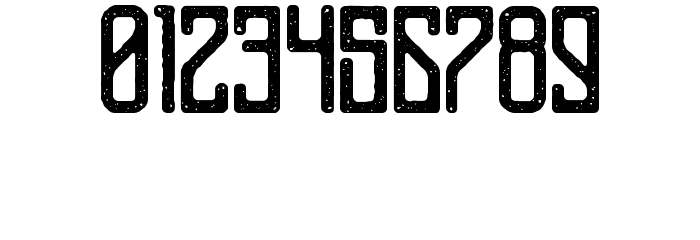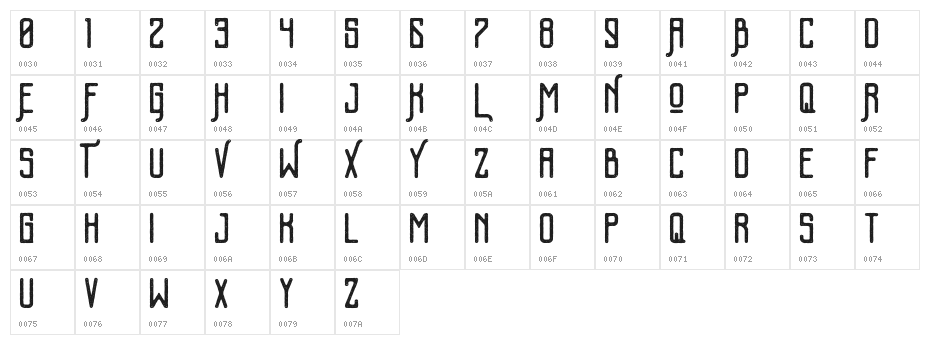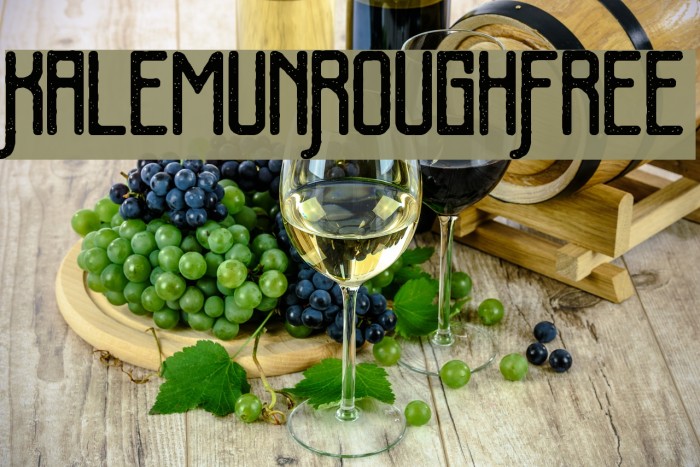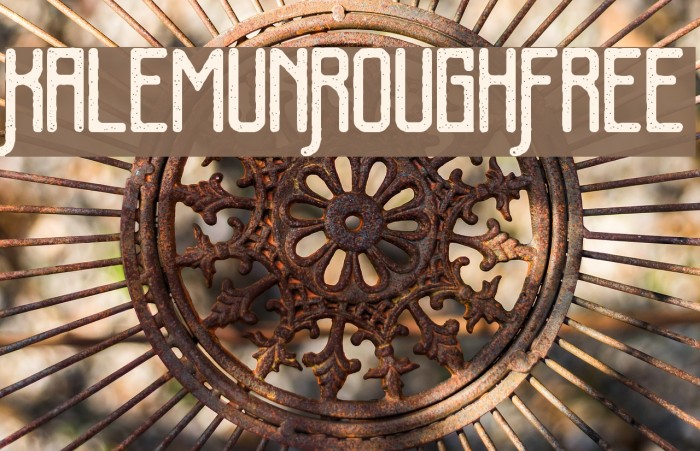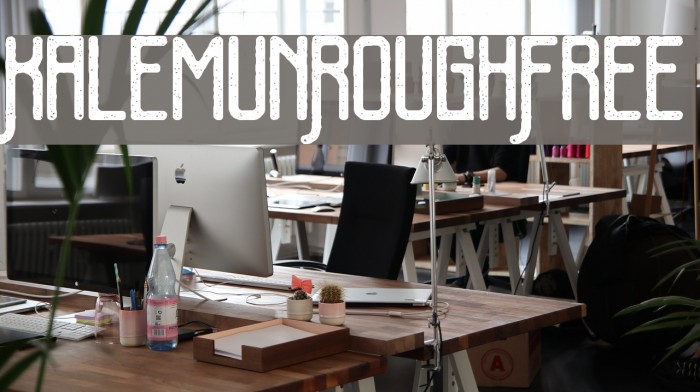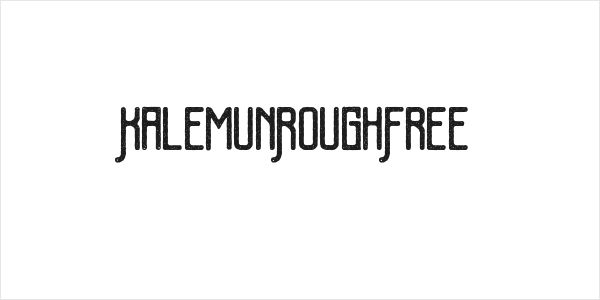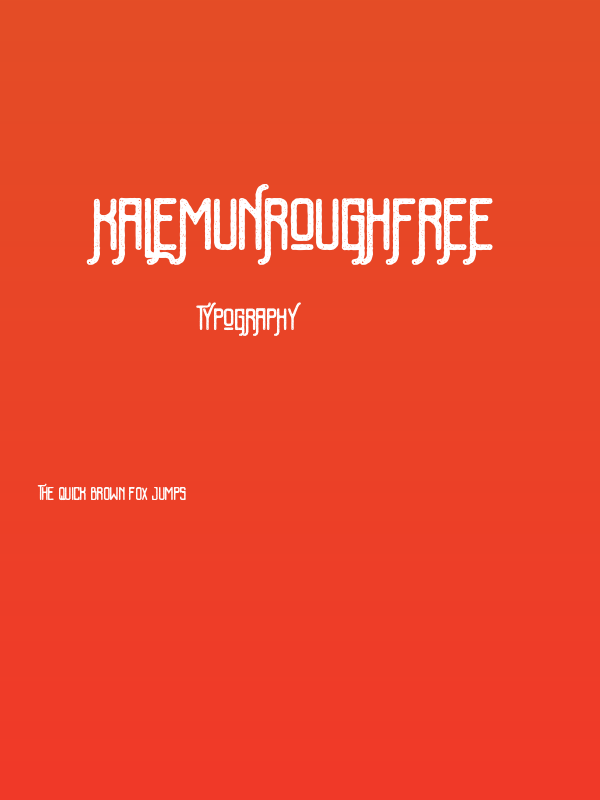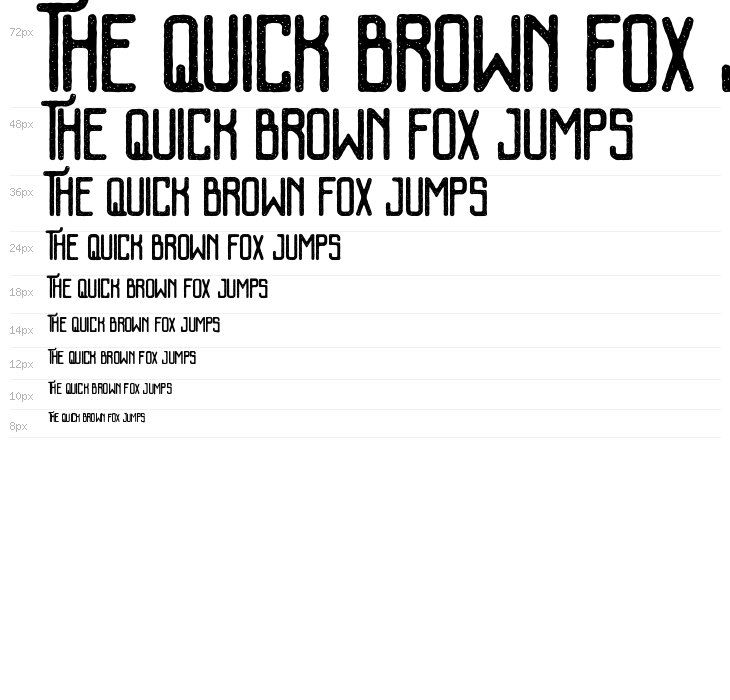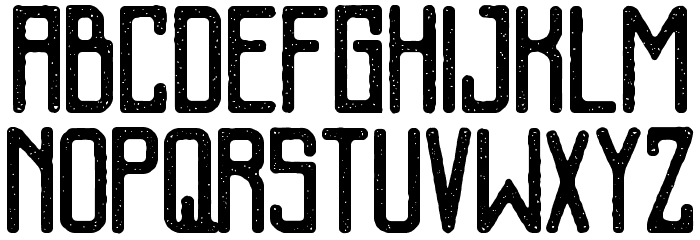
KalemunRoughFree Font
KalemunRoughFree Description
This font features a bold and rugged design with a distressed texture that gives it a rough, vintage appearance. The characters are blocky and geometric, with a consistent thickness throughout, contributing to a strong and sturdy look. The distressed effect is uniformly applied, adding a tactile, worn feel that enhances its rustic charm. The uppercase letters are prominent and commanding, while the lowercase letters maintain the same robust style, ensuring readability. Numbers and special characters are designed with the same rugged texture, making them suitable for various creative applications. The font's unique style makes it ideal for projects that require a touch of vintage or industrial flair.
Overall StyleVintage
Proposed ProjectsIdeal for vintage-themed posters, industrial design projects, branding, and packaging that requires a rustic touch.